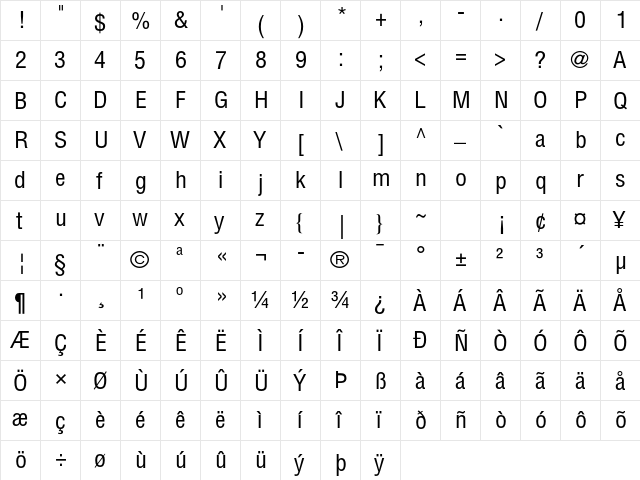
Helvetica LT Std Condensed
| Designer | Max Miedinger |
Design Context for Helvetica LT Std Typeface
Helvetica LT Std offers clean, dependable letterforms without strong stylistic allegiance, making it a practical choice for designers who need flexibility. Its slender proportions lend an understated elegance to any composition. Its narrow stance lets it pack a punch even in space-constrained designs.